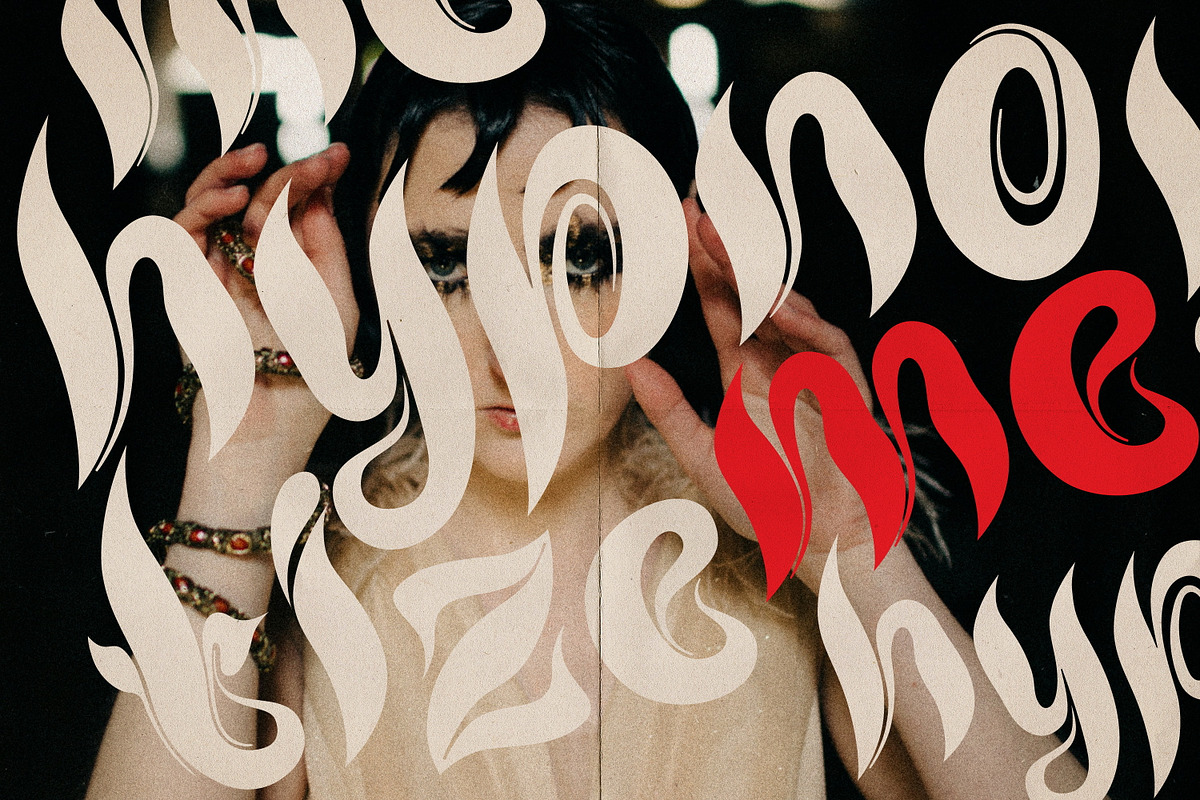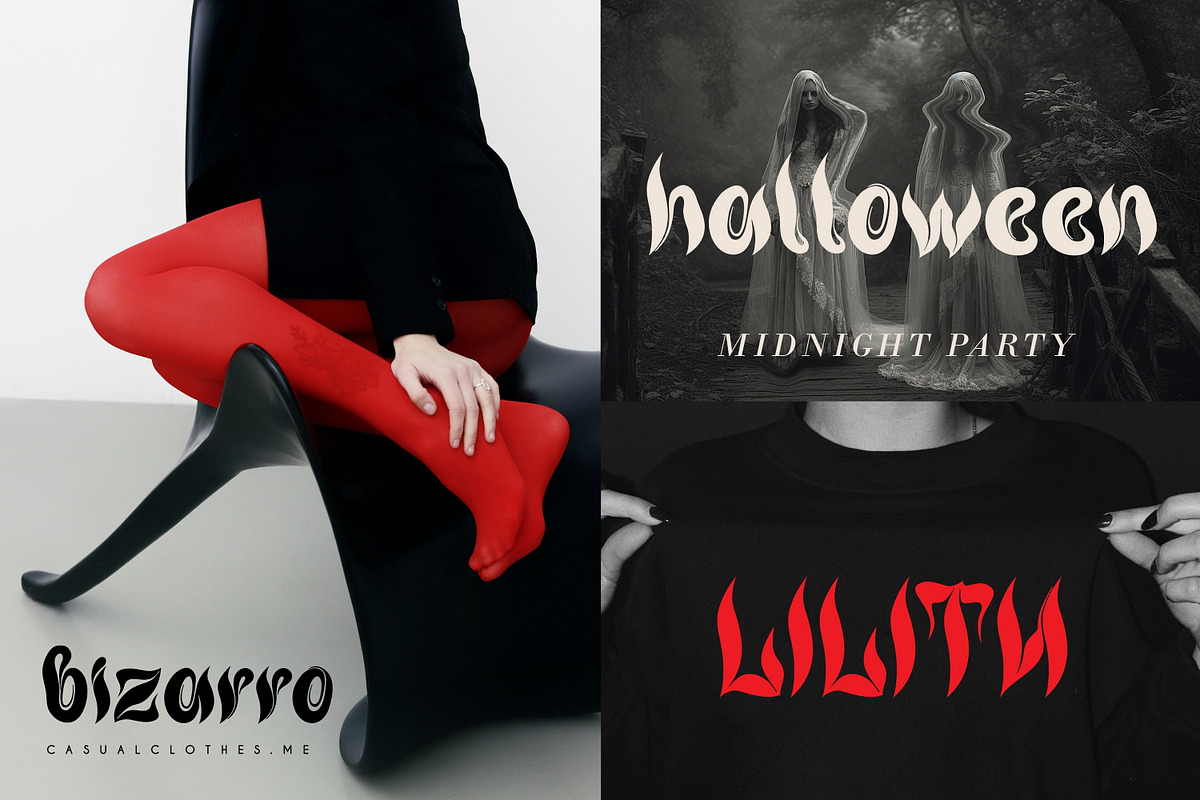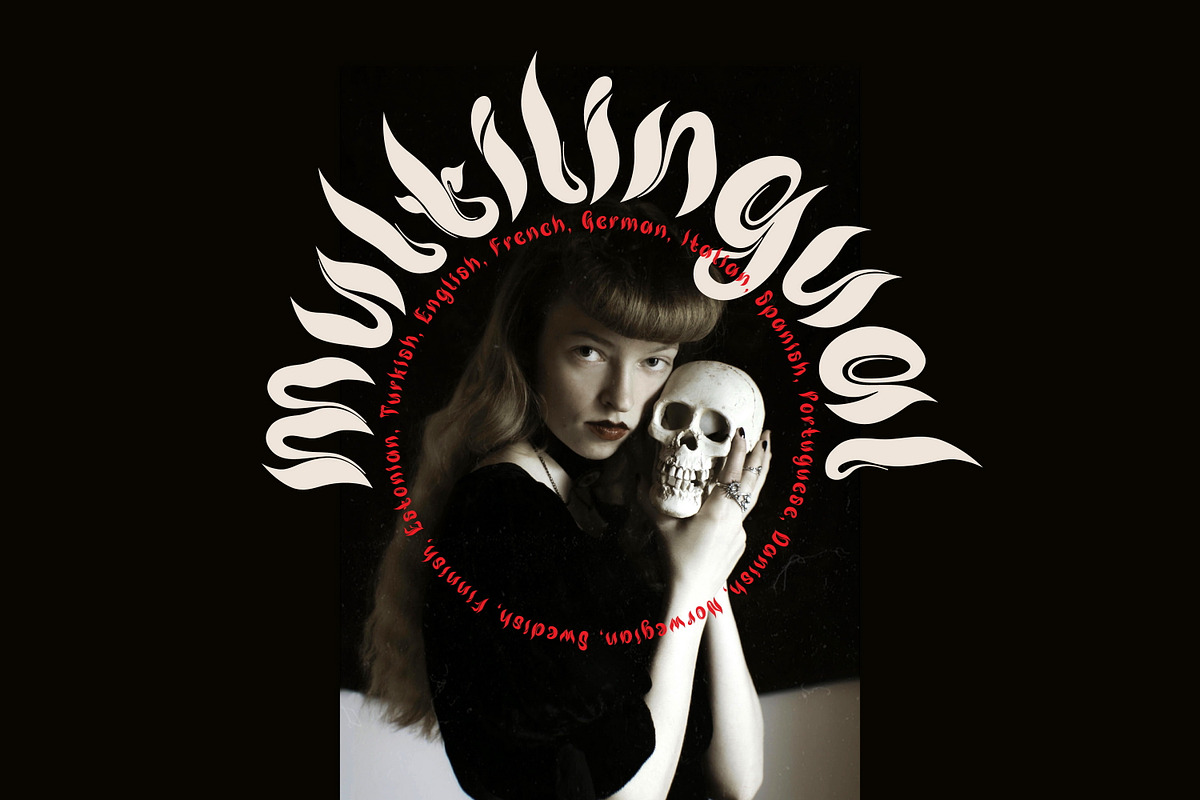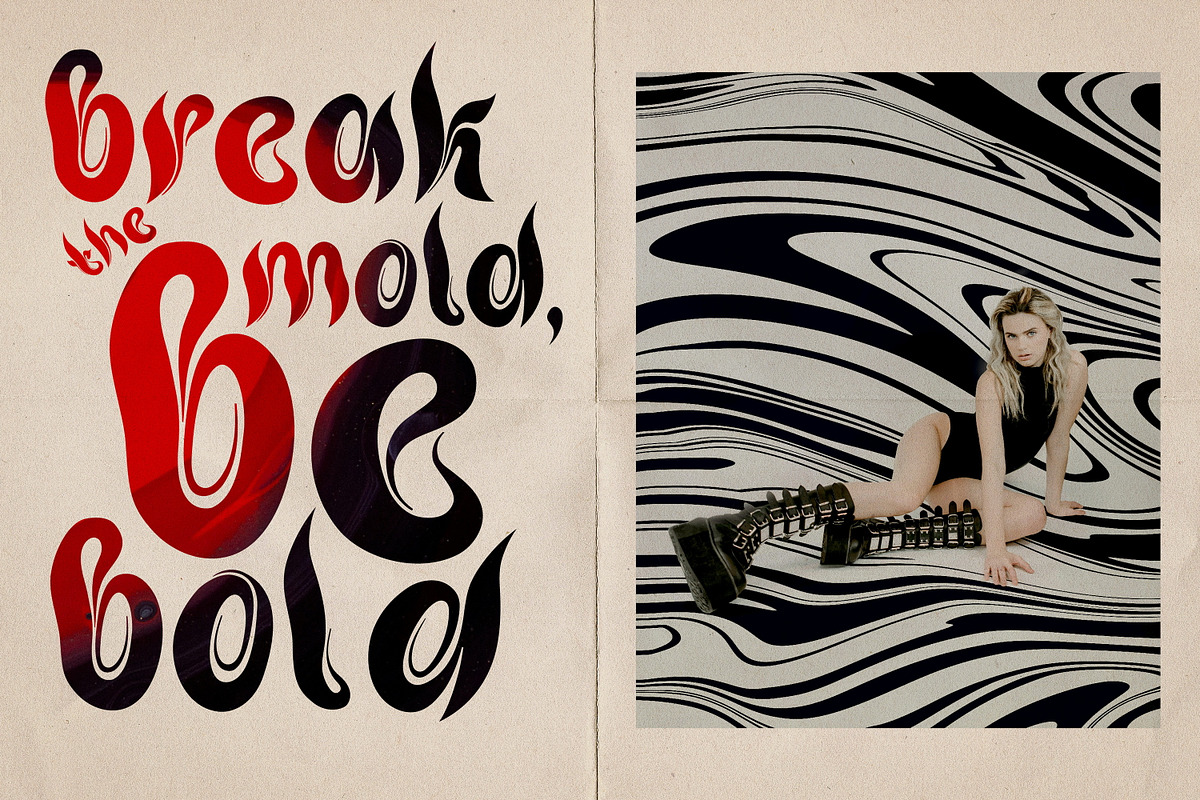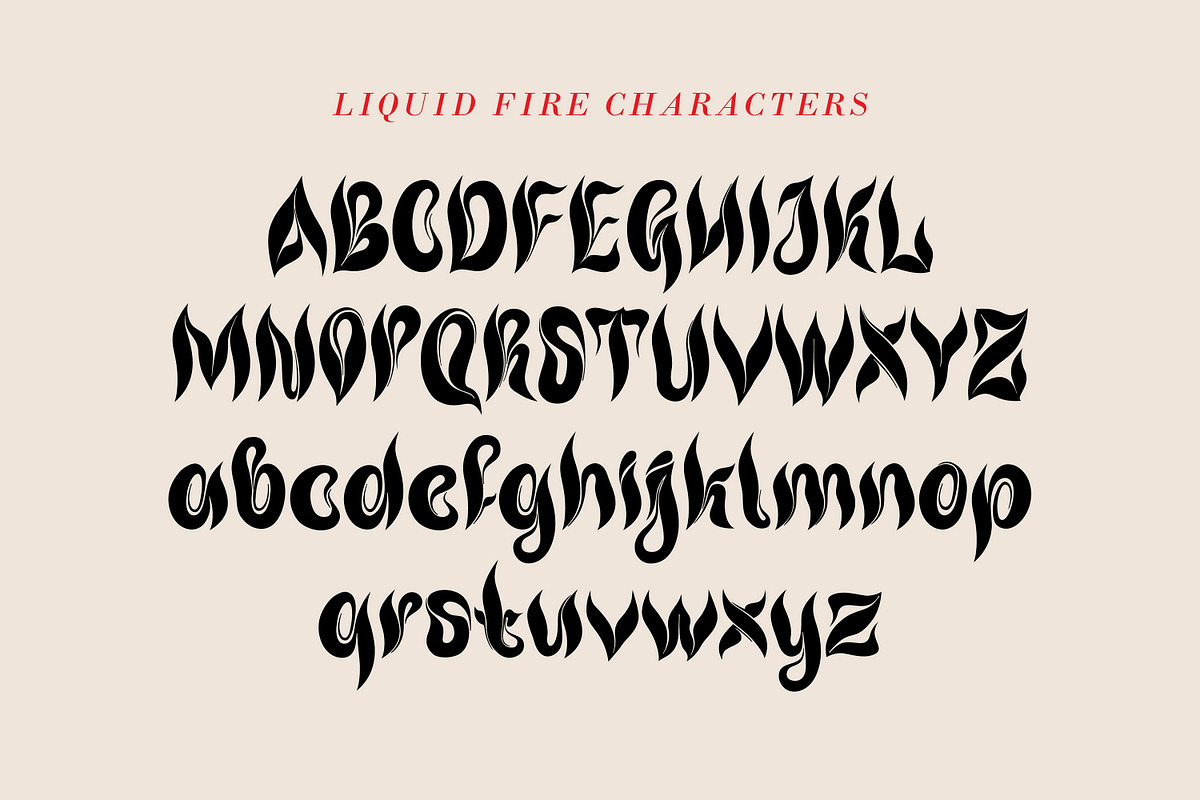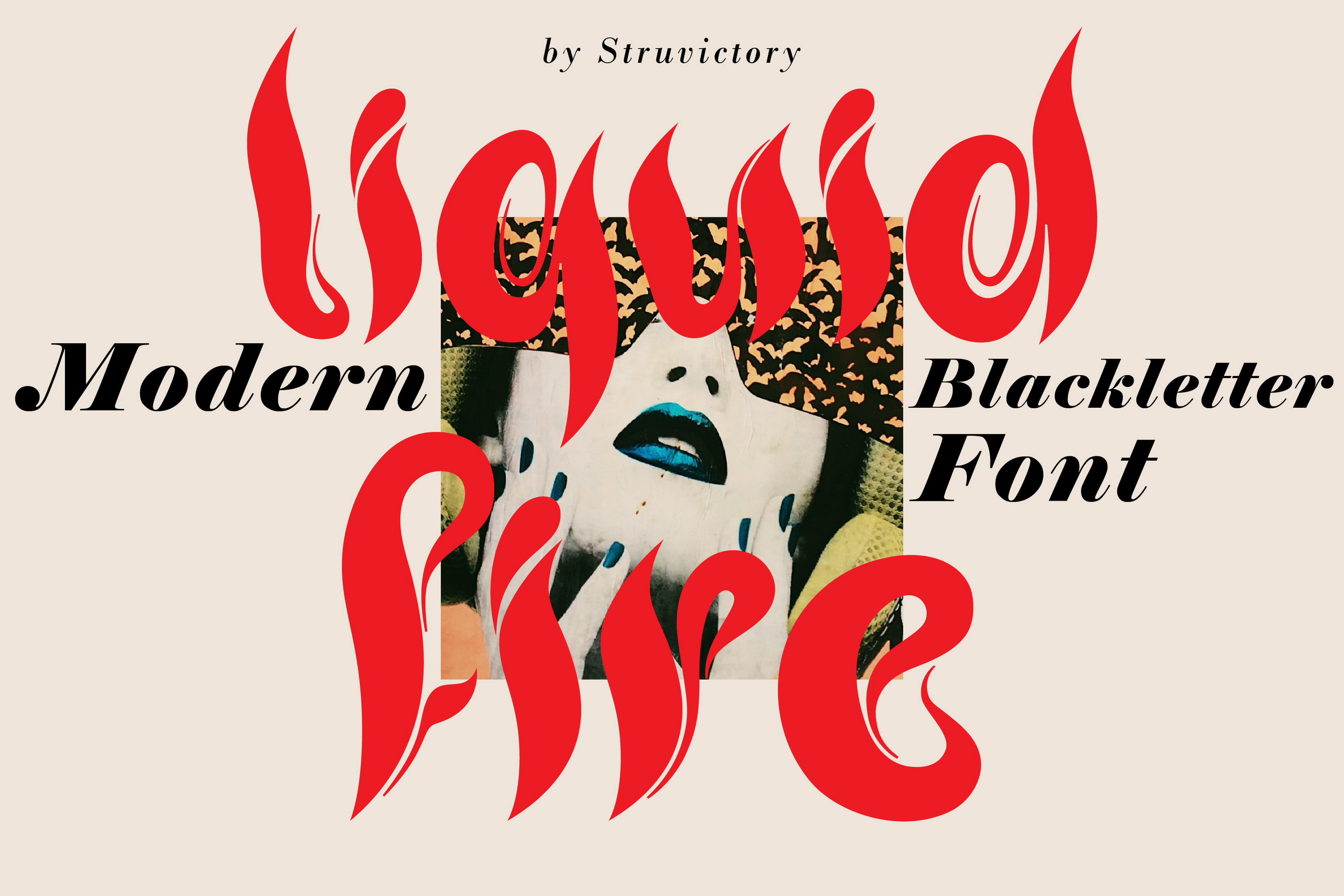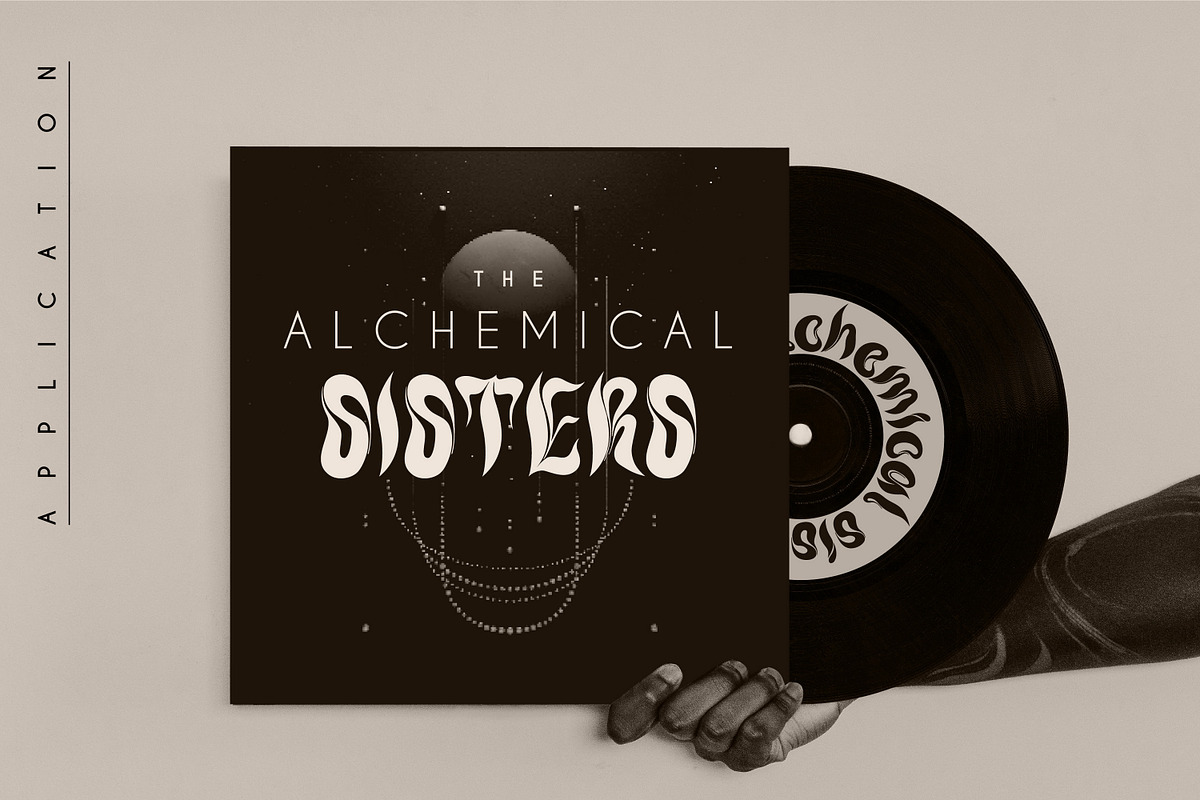
Liquid Fire Modern Blackletter Font
Introducing Liquid Fire, a contemporary Gothic font with fluid forms that exude mystery and sophistication. This avant-garde typeface combines intricate elegance with a modern twist, perfect for logos, branding, editorial layouts, and dark theme design.